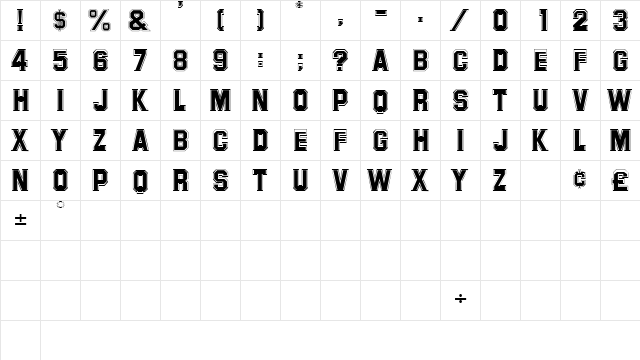
LetterSweaterSansOutlineCapsSSK Regular
Design Context for LetterSweaterSansOutlineCapsSSK Typeface
LetterSweaterSansOutlineCapsSSK brings ornamental detail and strong personality to headlines and identities, where visual impact matters more than quiet functionality.
Font Pairing: Pair with a clean neutral sans-serif for body copy to let LetterSweaterSansOutlineCapsSSK's character lead without overwhelming the composition.
Pro Tip: Treat LetterSweaterSansOutlineCapsSSK as the centrepiece of your typographic hierarchy. One strong heading set in a decorative face can carry an entire layout.